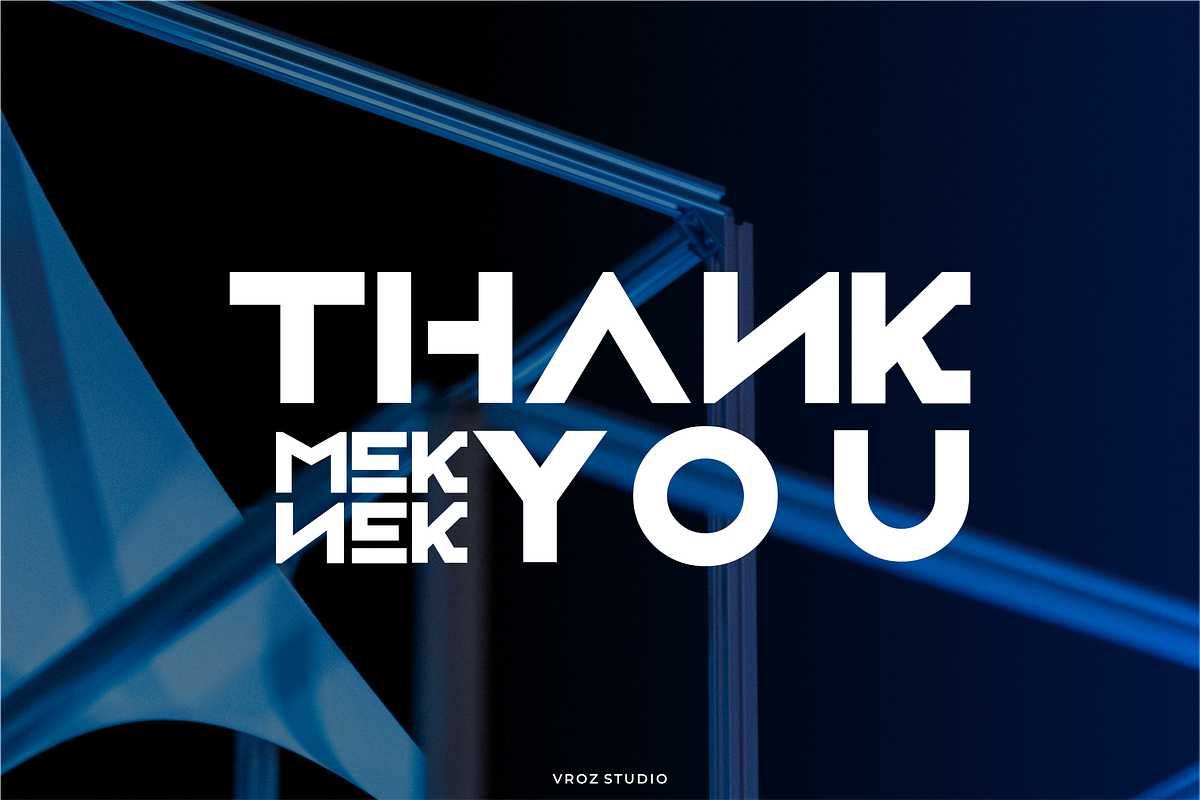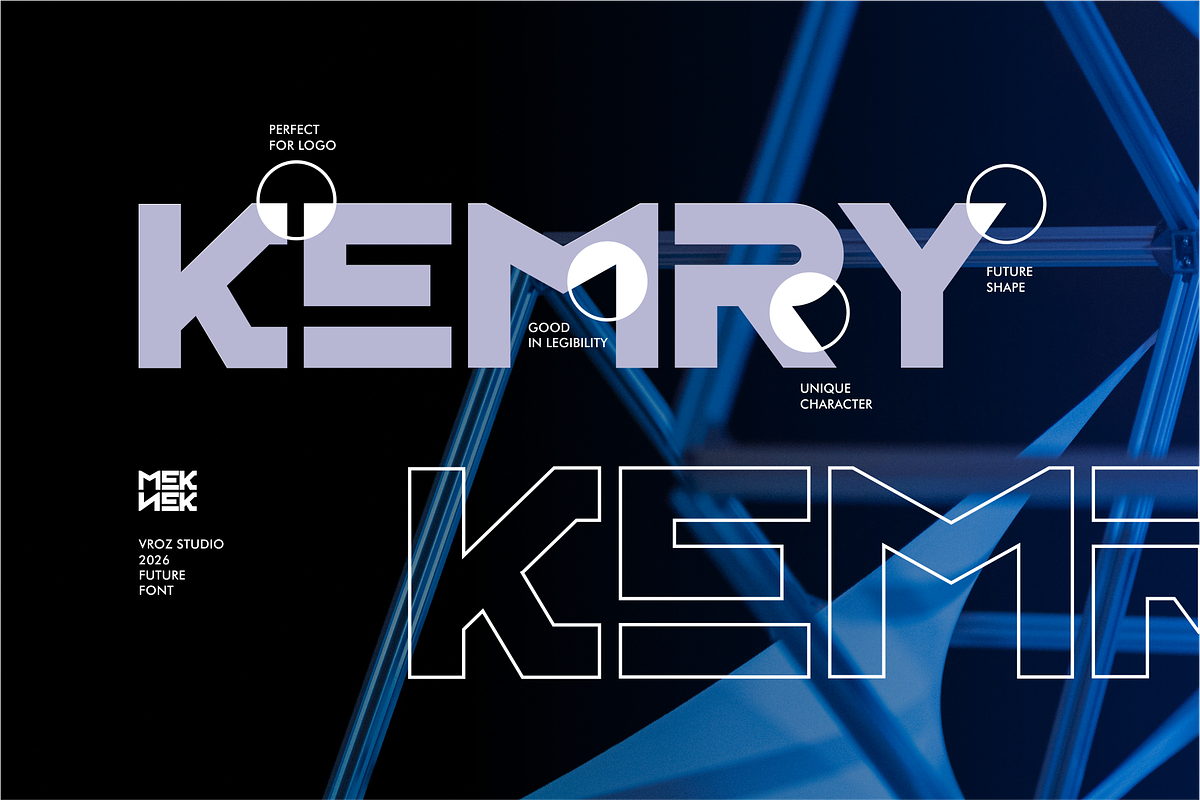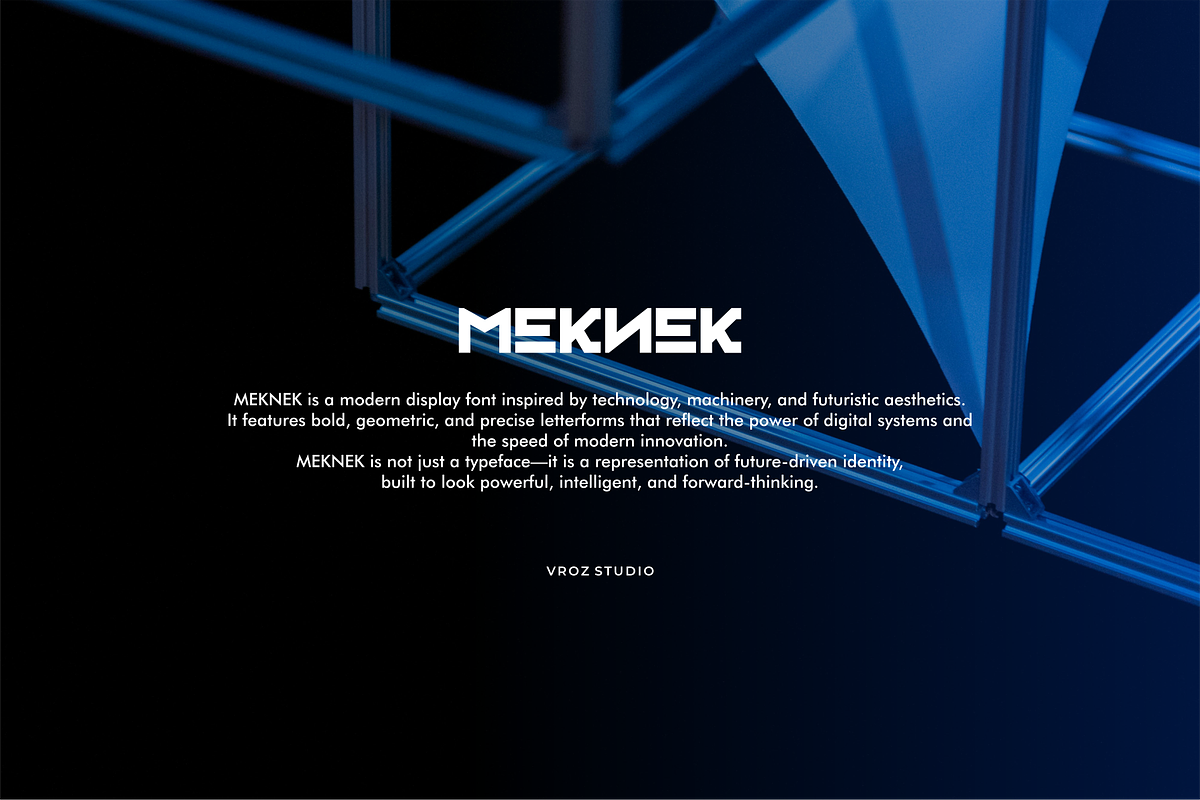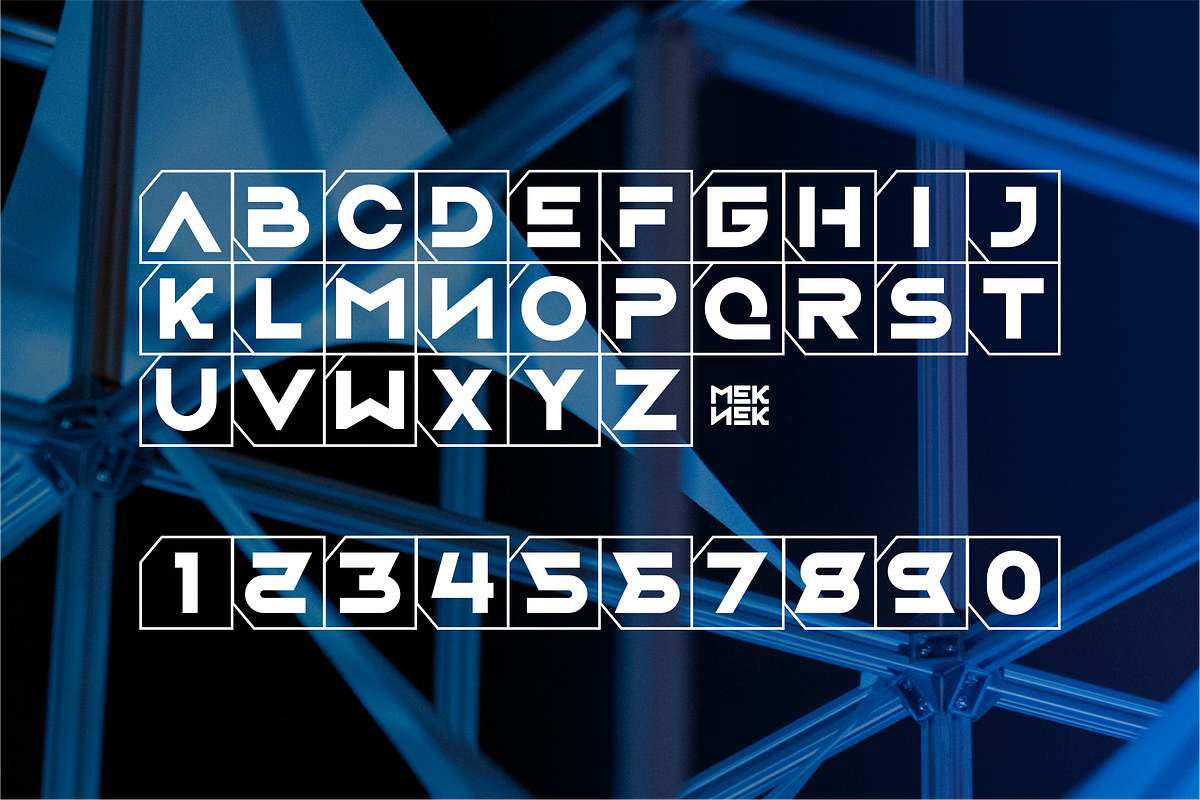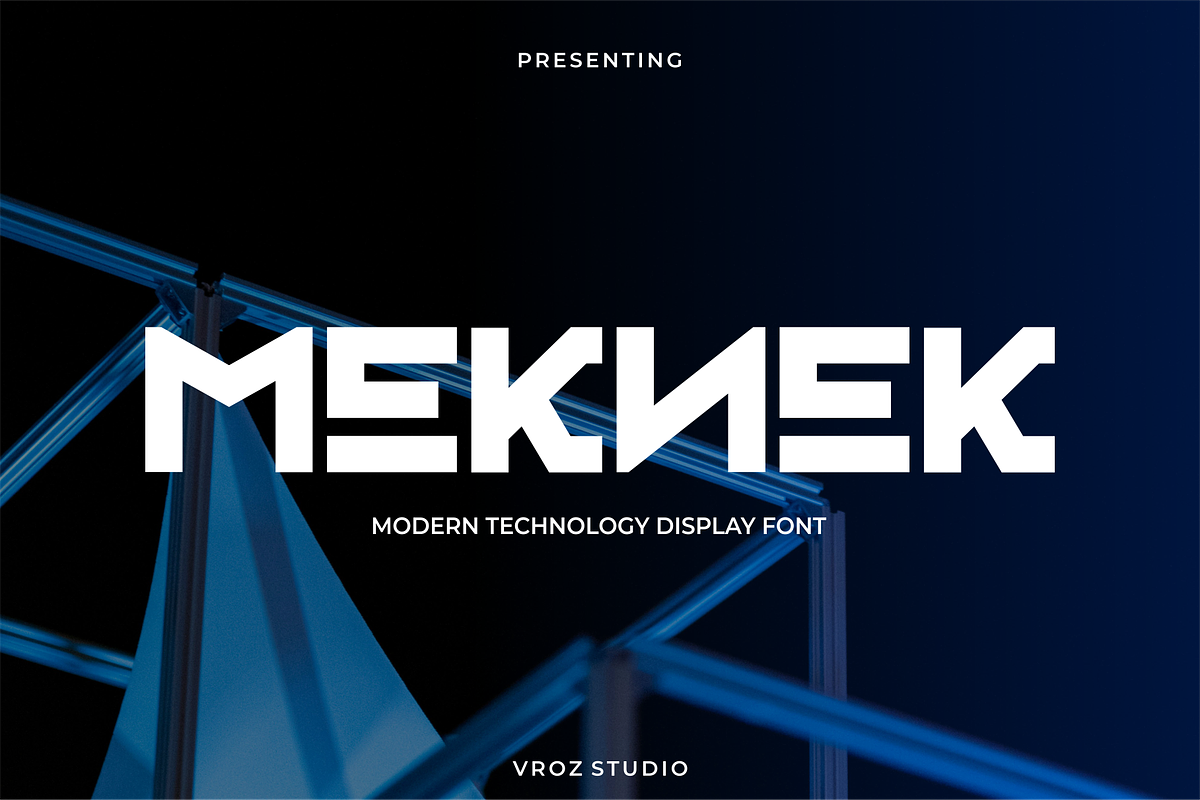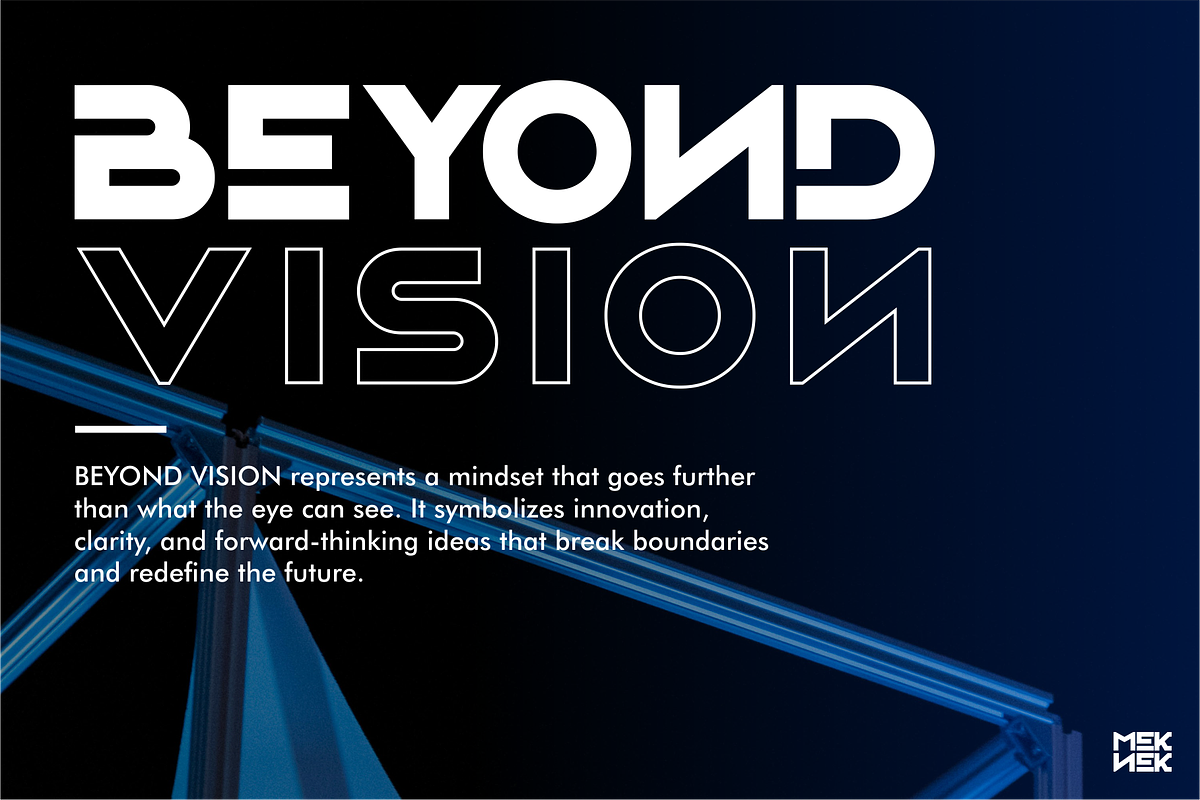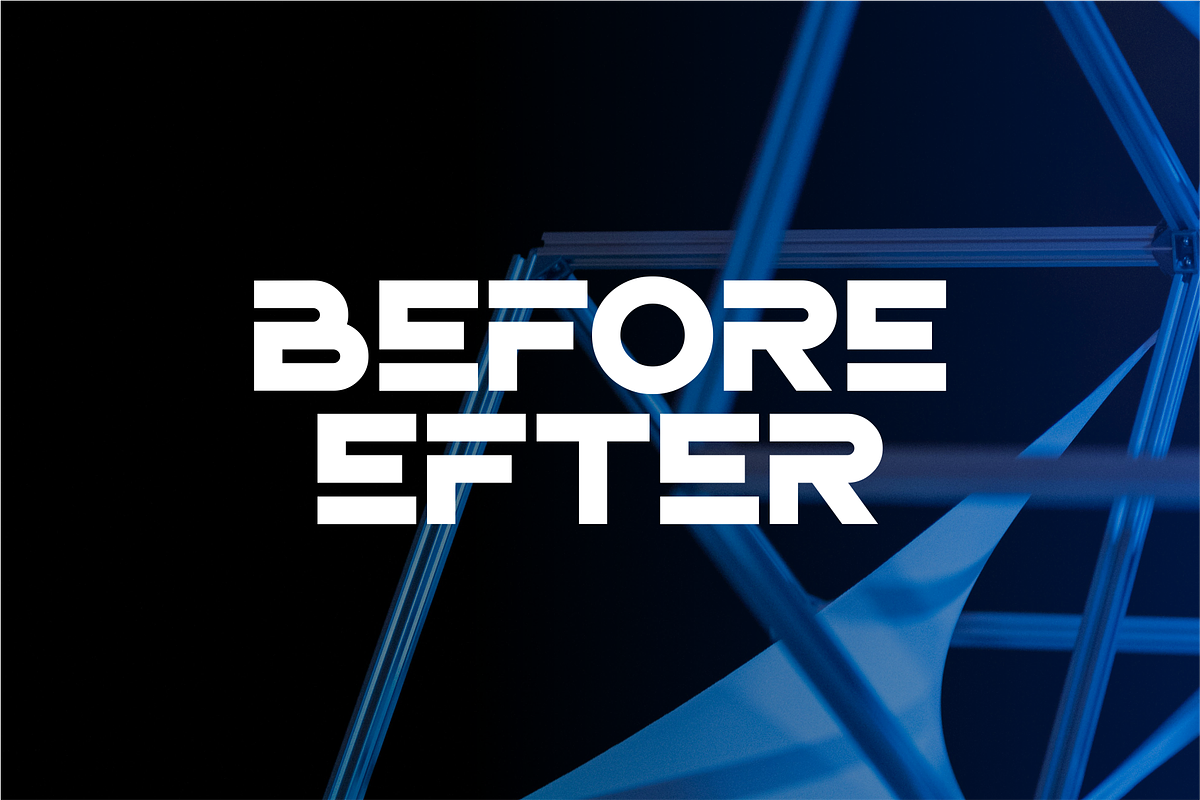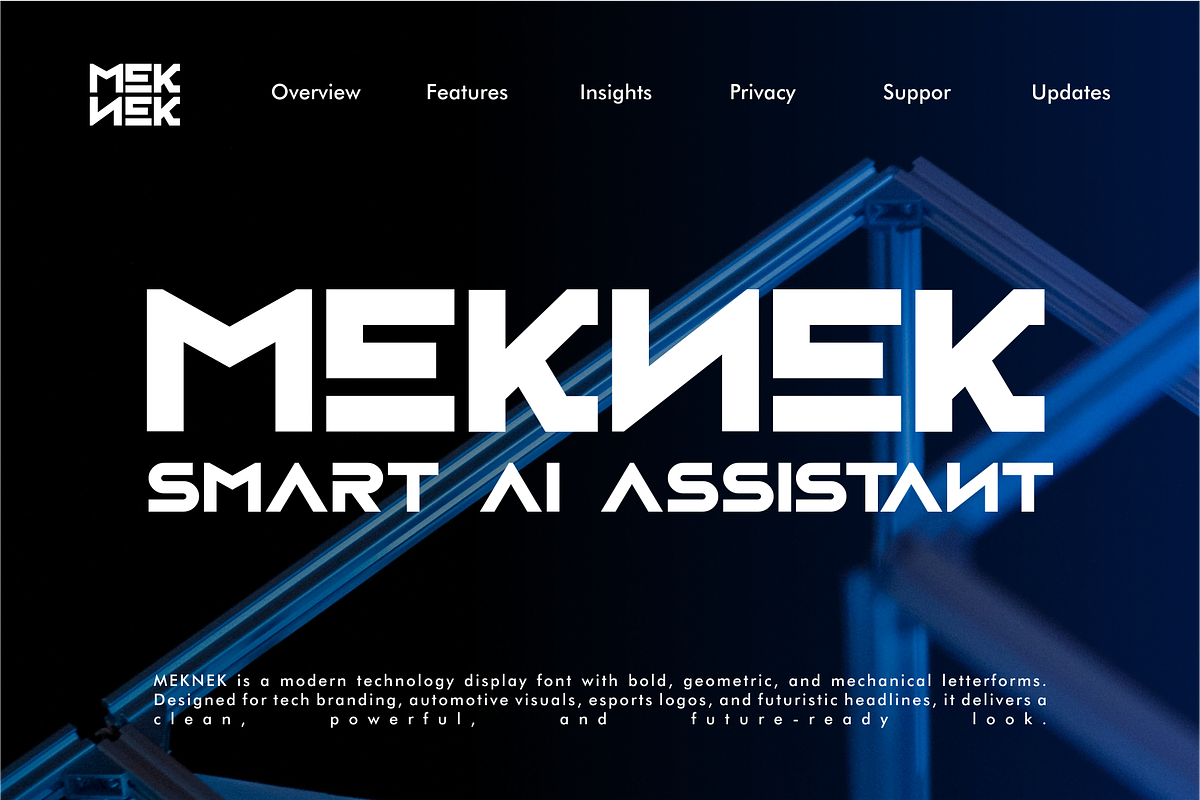
Meknek – Modern Technology Display
MEKNEK is a modern technology display font designed to express power, precision, and futuristic character. Built with bold geometric forms and a strong mechanical structure, this typeface delivers a sharp and confident visual impact inspired by digital systems and industrial design.
Created specifically for headlines and visual statements, MEKNEK is ideal for technology branding, automotive projects, esports logos, futuristic posters, UI displays, and sci-fi themed designs. Its striking letterforms ensure high visibility and a modern edge, making every title stand out with authority.
With its clean construction and tech-driven aesthetic, MEKNEK brings a future-ready identity to both digital and print media—perfect for creators and brands that want to look innovative, bold, and forward-thinking.
MEKNEK – Modern Technology Display Font Features
- Bold modern display font with futuristic technology style
- Perfect for tech branding, automotive, esports, posters, and headlines
- Strong geometric and mechanical letterforms
- Optimized for display use in digital and print projects
- Uppercase, lowercase, numerals, and punctuation included
Power your visuals with MEKNEK — a modern technology display font built for the future